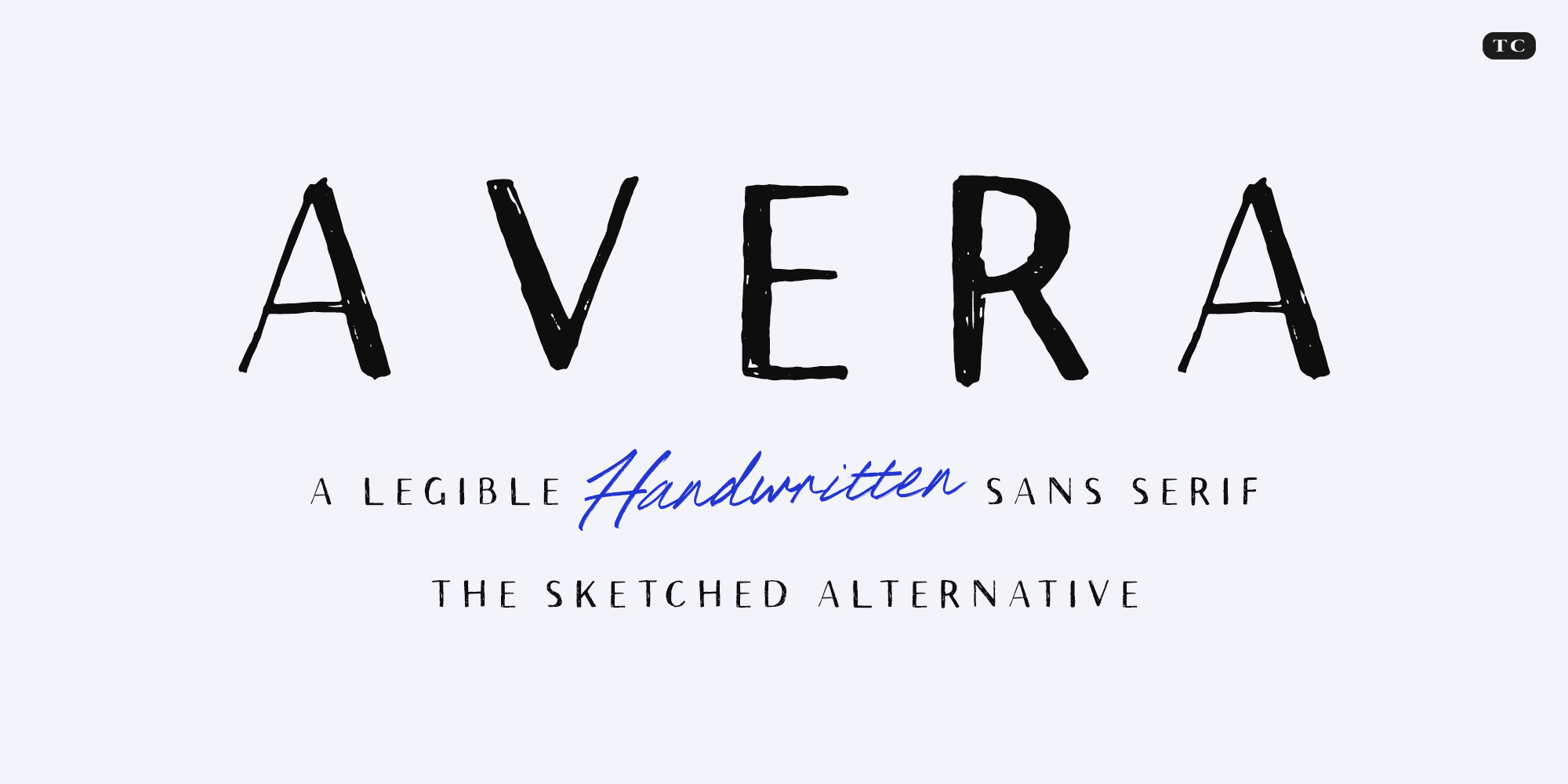
TC Avera Sans Sketch Font is ideal for architectural design presentations, creative brainstorming sessions, sketch-style branding, artistic workshop materials, design studio logos, hand-drawn illustration projects, concept art documentation, prototype wireframes, creative agency portfolios, and innovative projects that celebrate the authentic beauty of preliminary sketches and conceptual design processes.
What makes TC Avera Sans Sketch Font so exciting is its masterful recreation of hand-sketched typography that perfectly captures the spontaneous energy and creative authenticity of preliminary design work. This typeface embodies the spirit of creative exploration, featuring carefully crafted imperfections and sketch-like qualities that suggest pencil strokes and design iterations while maintaining excellent readability and professional polish for contemporary applications.
TC Avera Sans Sketch Font family encompasses multiple sketch variations: Regular, Bold, Light, Rough, Fine, Loose, Tight, and Concept versions. Each style maintains the font's inherent hand-drawn character while offering different sketching techniques and line qualities, enabling designers to create authentic creative process aesthetics that resonate with audiences who appreciate artistic development and design methodology.
The creative authenticity of TC Avera Sans Sketch Font Free Download makes it exceptionally valuable for design professionals and creative industries. This font successfully communicates innovation and artistic process, making it perfect for businesses that want to showcase their creative methodology and design thinking. Its distinctive sketch character works beautifully across both digital presentations and print portfolios, while its hand-drawn aesthetic creates immediate connection with audiences who appreciate the creative journey and conceptual development behind great design.